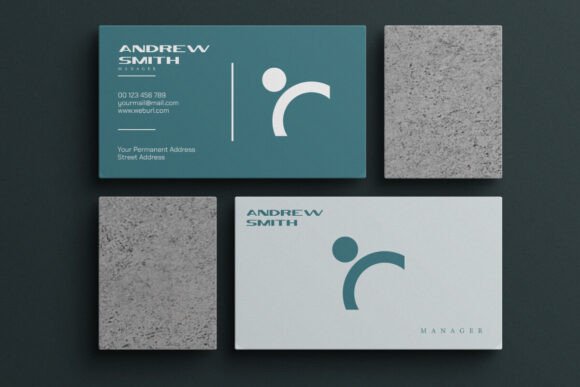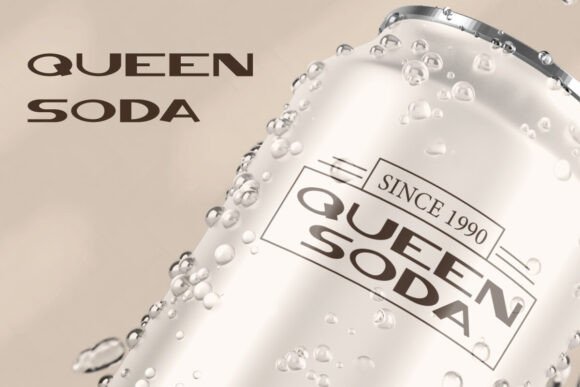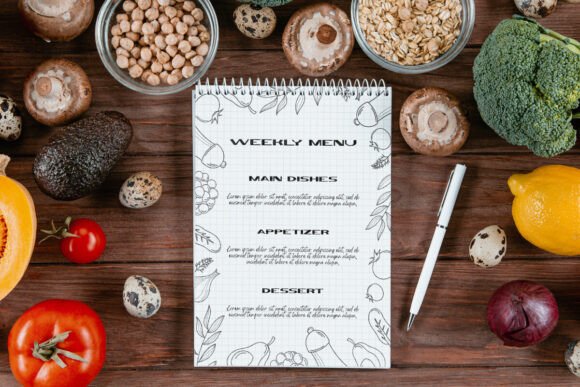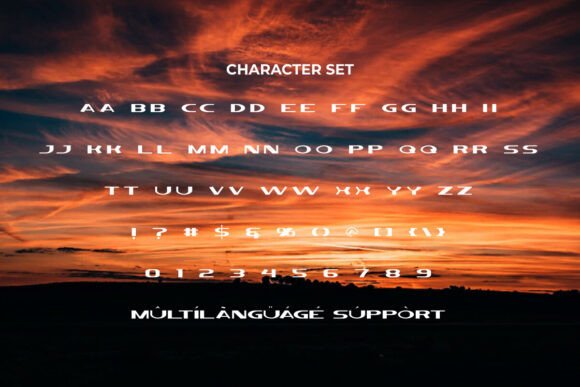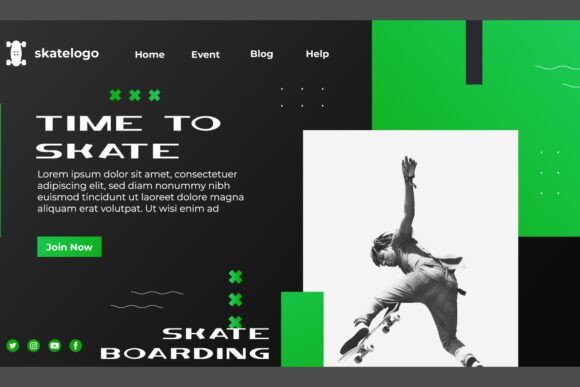
Dream Block Font: The Ultimate Futuristic Sans Serif for Stunning Designs
In the world of design, fonts play a crucial role in capturing the audience’s attention and conveying the message effectively. If you’re looking for a font that can make your designs stand out, look no further than the Dream Block Font. This futuristic, stylish sans serif font is designed to grab attention from a distance, making it perfect for various design projects.
What is Dream Block Font?
Dream Block Font is a modern sans serif font that boasts a large size, making it instantly noticeable. Its sleek and futuristic design ensures that it stands out in any design project, whether it’s a brand image, poster, or product packaging. The font’s clean and minimalist aesthetic makes it versatile and easy to read, even from a distance.
Key Features of Dream Block Font
- Large Size: The font’s large size ensures that it catches attention immediately, making it perfect for designs that need to stand out.
- Futuristic Design: The font’s sleek and modern design gives it a futuristic feel, making it ideal for designs that require a cutting-edge look.
- Sans Serif: The font’s sans serif design ensures that it’s clean and easy to read, even at small sizes.
- Versatility: The font’s versatility makes it suitable for a wide range of design projects, from branding and advertising to packaging and more.
Use Cases for Dream Block Font
Dream Block Font is suitable for a wide range of design projects, including:
- Brand Image: Use Dream Block Font to create a strong and recognizable brand image that stands out from the competition.
- Cover Design: The font’s large size and futuristic design make it perfect for cover designs that need to grab attention.
- Custom Design: Dream Block Font can be used in custom designs, such as brochures, flyers, and more.
- Greeting Cards: The font’s clean and minimalist design makes it suitable for greeting cards and invitations.
- Labels and Menus: Use Dream Block Font to create eye-catching labels and menus that stand out.
- Posters and Signage: The font’s large size and futuristic design make it perfect for posters and signage that need to grab attention from a distance.
- Product Packaging: Dream Block Font can be used in product packaging to create a strong and recognizable brand image.
- Quotes and Web Design: The font’s clean and minimalist design makes it suitable for quotes and web design projects.
Why Choose Dream Block Font?
There are many reasons why designers and crafters should choose Dream Block Font for their design projects:
- Attention-Grabbing: The font’s large size and futuristic design ensure that it grabs attention immediately.
- Versatility: Dream Block Font is suitable for a wide range of design projects, making it a great addition to any designer’s toolkit.
- Easy to Read: The font’s clean and minimalist design makes it easy to read, even from a distance.
- Modern and Fresh: The font’s futuristic design gives it a modern and fresh feel, making it perfect for designs that require a cutting-edge look.
In conclusion, Dream Block Font is a futuristic, stylish sans serif font that’s perfect for designers and crafters looking to create stunning designs that stand out. Its large size, clean design, and versatility make it suitable for a wide range of design projects, from branding and advertising to packaging and more. If you’re looking for a font that can help you take your designs to the next level, look no further than Dream Block Font.